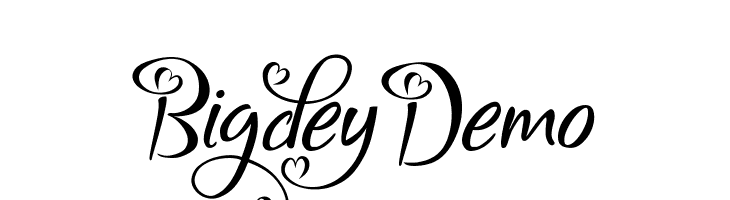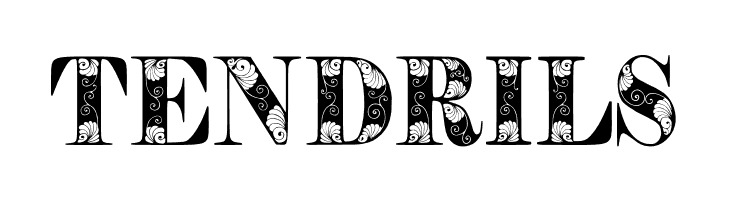
A bold, expressive handwritten font with dynamic curves and decorative flair.
A playful, rounded font with consistent stroke width and elegant curls.
A bold, dramatic serif font with thick strokes and pronounced serifs.
A decorative font with intricate, leaf-like patterns creating a bold and artistic style.
A decorative font with intricate, swirling patterns inside bold, rounded characters.
A bold, decorative font with a unique striped pattern for impactful designs.
A clean, minimalist font with thin, uniform lines and a modern, elegant appearance.
An ornate, decorative font with intricate tendril patterns.
Ornamental dingbat font with mandala motifs and bold sans-serif Latin letters.
An elegant, decorative script font with ornate swirls and heart motifs.